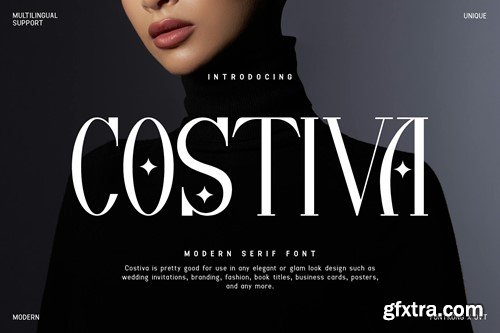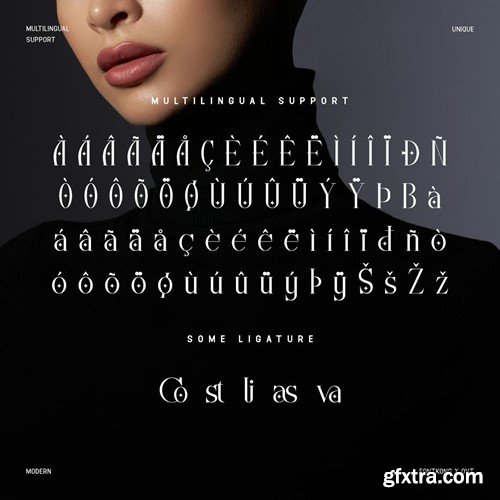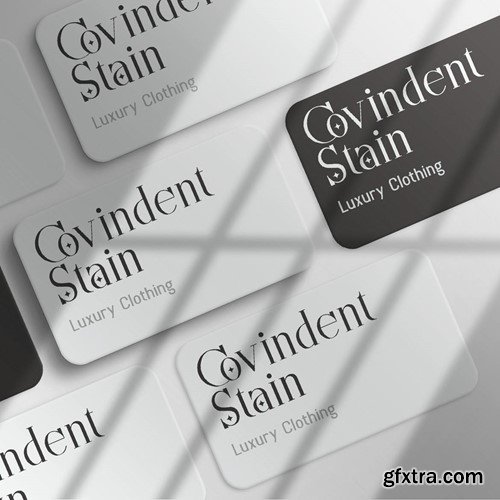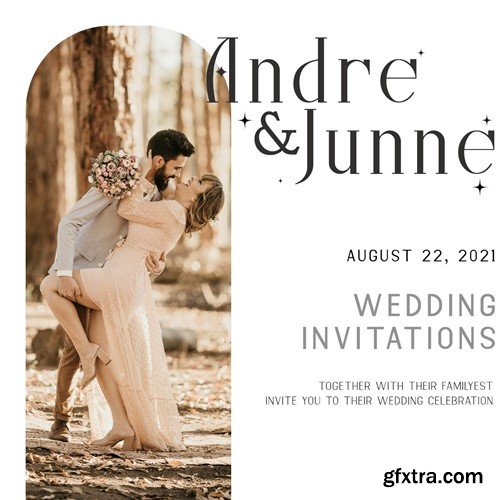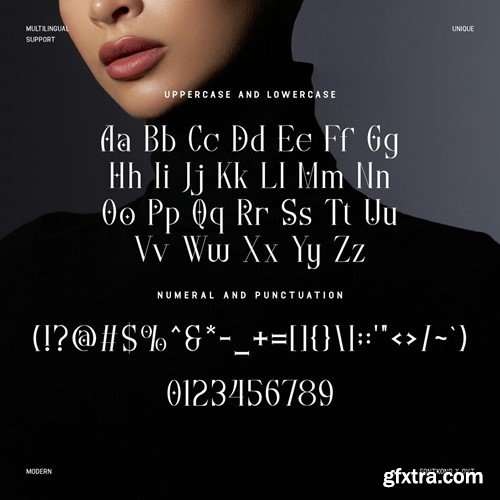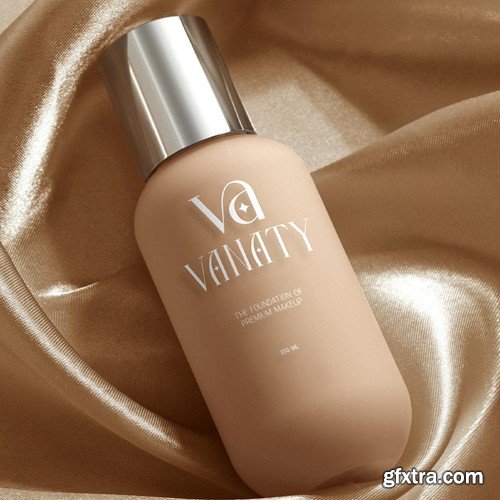
Costiva - Modern Serif Font Introducing "Costiva," a sleek and modern serif font that offers a blend of contemporary design with classic typography. Perfect for designers who appreciate subtlety and strength in their typefaces, Costiva is designed to make a lasting impression whether used in digital media or print. You will receive the font files in TTF, OTF, and WOFF formats Costiva's clean and crisp lines, combined with its balanced proportions, make it a versatile choice for a wide range of applications. From luxurious branding projects to elegant editorial content, this font elevates text with its unique character and style. Featuring a comprehensive suite of weights, italics, numerals, punctuation, and extensive multilingual support, Costiva is as functional as it is beautiful. Ideal for sophisticated advertising campaigns, compelling web design, and impactful corporate communications, Costiva adapts effortlessly to meet creative needs. Its refined aesthetics ensure that your projects not only look professional but also truly stand out. Costiva is the essential modern serif font for achieving clarity and elegance in your typographic creations.